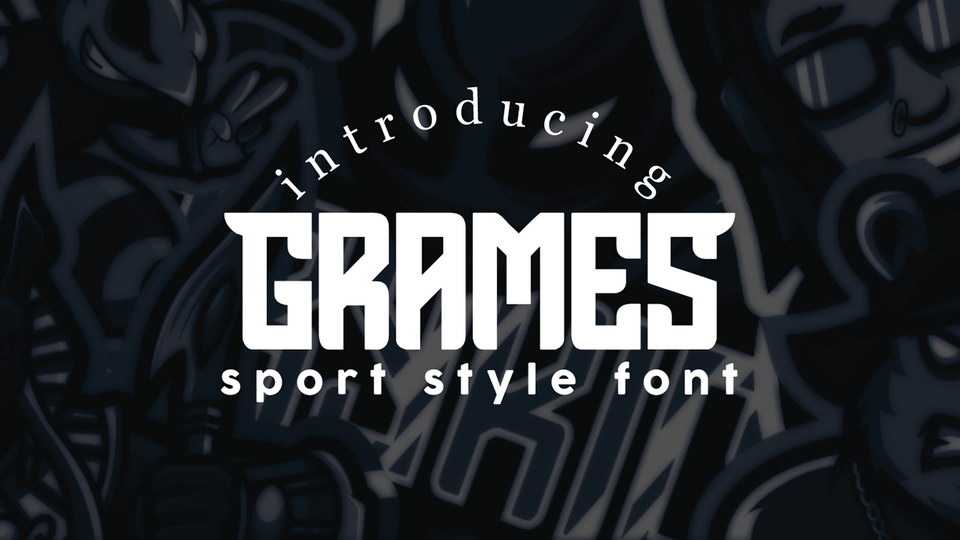
Grames Font › Fontesk
Download Grames font, a sport style display font with a lot of alternates. Grames font is perfect for sport and game logos and branding, headlines, posters, t-shirts, prints and more.
Designer: TAN ZUHA N